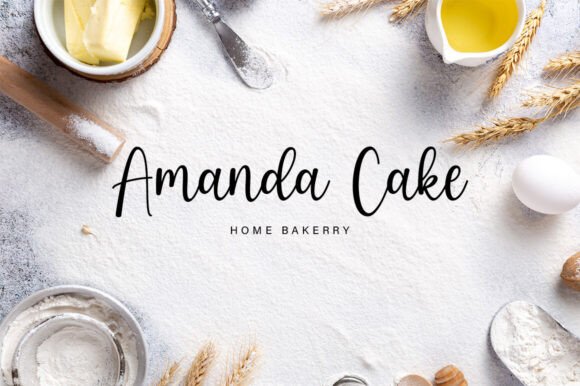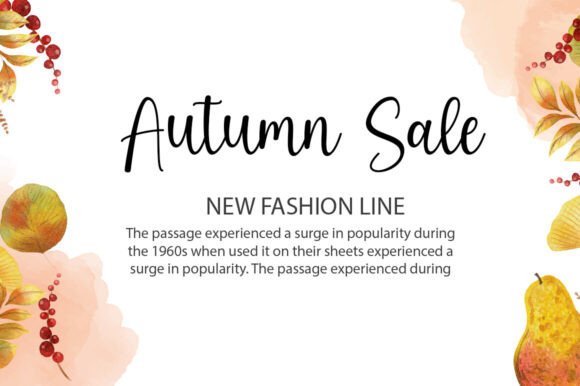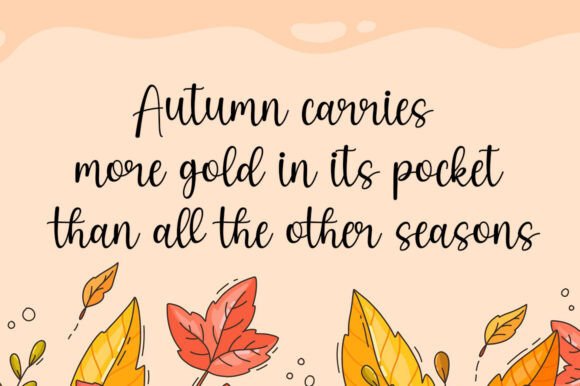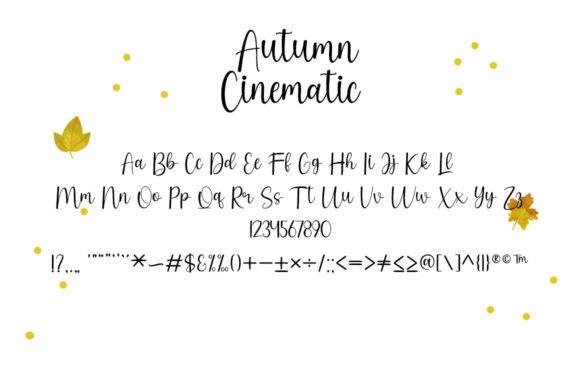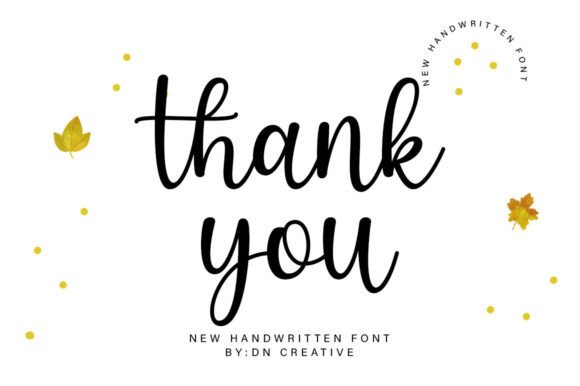
Introducing Autumn Cinematic Font: Elevate Your Designs with Elegance
Are you a designer or crafter looking for a font that exudes style and sophistication? Look no further than the Autumn Cinematic Font. This stunning handwritten font is perfect for adding a touch of elegance to any design project. From wedding invitations to business cards, Autumn Cinematic is the ideal choice for anyone seeking a font that is both beautiful and versatile.
What Makes Autumn Cinematic Font So Special?
Autumn Cinematic Font is a stylish and incredibly elegant handwritten font that is sure to impress. Its unique and flowing script makes it perfect for a wide range of design applications, including:
- Wedding invitations and thank you cards
- Quotes and greeting cards
- Logos and business cards
One of the standout features of Autumn Cinematic Font is its PUA (Private Use Area) encoding. This means that you can access all of the glyphs and alternates with ease, giving you complete creative control over your designs.
The Benefits of Using Autumn Cinematic Font
So why choose Autumn Cinematic Font for your design projects? Here are just a few benefits of using this stunning font:
- Elegance and sophistication: Autumn Cinematic Font adds a touch of class and refinement to any design project.
- Versatility: This font is perfect for a wide range of design applications, from wedding invitations to business cards.
- Easy to use: With PUA encoding, you can access all of the glyphs and alternates with ease, making it simple to create beautiful designs.
- Unique and eye-catching: Autumn Cinematic Font is sure to grab attention and make your designs stand out from the crowd.
Tips for Using Autumn Cinematic Font
To get the most out of Autumn Cinematic Font, here are a few tips to keep in mind:
- Use it sparingly: Autumn Cinematic Font is a statement font, so use it sparingly to add emphasis and elegance to your designs.
- Experiment with different sizes and colors: Play around with different sizes and colors to find the perfect combination for your design.
- Pair it with other fonts: Autumn Cinematic Font pairs beautifully with other fonts, so don’t be afraid to experiment with different combinations.
Who Can Benefit from Autumn Cinematic Font?
Autumn Cinematic Font is perfect for a wide range of designers and crafters, including:
- Wedding designers: Create beautiful wedding invitations, thank you cards, and other stationery with Autumn Cinematic Font.
- Graphic designers: Add a touch of elegance to your designs with Autumn Cinematic Font.
- Crafters: Use Autumn Cinematic Font to create beautiful handmade cards, gift tags, and other crafts.
- Small business owners: Create professional-looking business cards, logos, and branding materials with Autumn Cinematic Font.
| Font Name | Autumn Cinematic Font |
| Author | DN Creative |
In conclusion, Autumn Cinematic Font is a stunning and elegant handwritten font that is perfect for designers and crafters looking to add a touch of sophistication to their designs. With its PUA encoding and versatile design, this font is sure to become a go-to choice for a wide range of design applications. So why wait? Download Autumn Cinematic Font today and start creating beautiful designs that will leave a lasting impression.